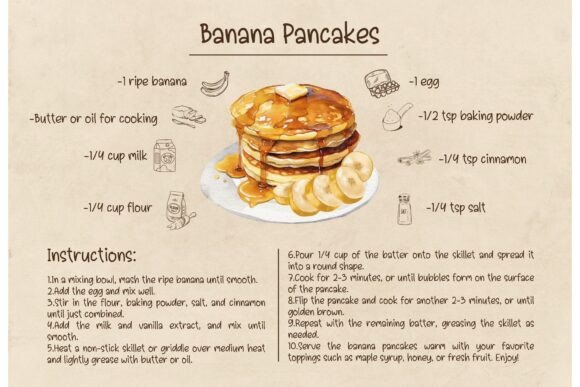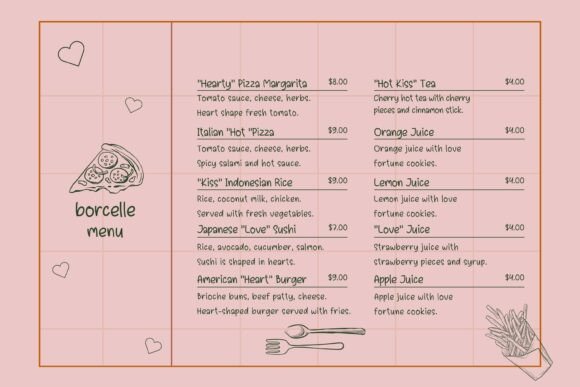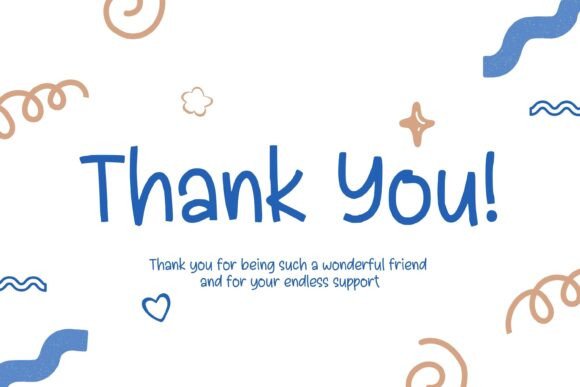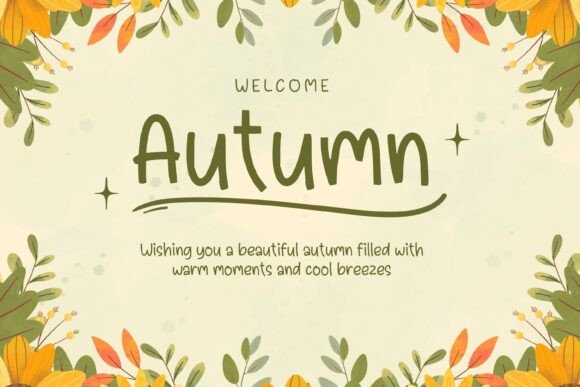
Discover the Perfect Blend of Style and Functionality
Have you ever sat down with a blank sheet of paper and a pen, waiting for inspiration to strike? Maybe it was a brainstorming session for a new project, a heartfelt letter to a loved one, or simply a moment of quiet reflection. Whatever the reason, the act of putting pen to paper can be a truly liberating experience. And what’s even better? Bringing that same feeling to life with the perfect font.
Enter Jelika Font – a versatile and effortlessly cool handwriting font that’s perfect for adding a touch of personalized charm to your design projects. Whether you’re crafting a handmade card, creating a professional business venture, or simply looking to add some flair to your everyday documents, Jelika strikes the perfect balance between stylistic expression and functionality. As a valuable addition to any designer’s toolkit, Jelika Font is sure to become your go-to choice for all your creative endeavors.
Jelika Font Key Features
- Font Family: Jelika is a sans-serif font family with a unique, modern design.
- Size: The font family includes 10 styles, ranging from Light to Bold, with 5 weights in between.
- Resolution: Optimized for use at high resolutions, making it suitable for digital displays and print materials.
- Language Support: Jelika supports multiple languages, including Latin, Cyrillic, and Greek alphabets.
- Unique Characteristics: Jelika features a distinctive, geometric design with a focus on legibility and readability.
Jelika Font Review
I recently had the chance to work with Jelika Font, and I must say it’s been an interesting experience. Let’s dive into what works well and what doesn’t.
- Unique and elegant design: Jelika Font has a distinctive look that can add a touch of sophistication to any project.
- High-quality glyph coverage: The font has a wide range of characters, including many languages and special symbols.
- Excellent legibility: Jelika Font is highly readable, making it suitable for body text and other content-heavy applications.
- Limited font weights: Jelika Font currently only comes in a few weights, which may limit its versatility in certain situations.
- No italics or bold-italics: This can make it difficult to create emphasis or add visual interest to text.
- Not ideal for display text: While Jelika Font is great for body text, it may not be the best choice for headlines or other display text due to its relatively narrow width.
Overall, Jelika Font is a solid choice for projects where you need a high-quality, elegant font. However, its limitations may make it less suitable for more complex or demanding projects.
Getting the Most Out of Jelika Font
To get the most out of Jelika font, experiment with different font combinations, pairing it with complementary fonts to create unique and visually appealing designs. Also, consider adjusting font sizes, colors, and styles to create emphasis and hierarchy in your designs.
Jelika font is ideal for creative projects, such as graphic designs, brochures, and marketing materials. It’s also suitable for digital projects, such as websites, social media graphics, and presentations.
Are there any font pairing recommendations for Jelika Font?
Yes, we recommend pairing Jelika Font with other sans-serif fonts to create a clean and modern typographic look. Some popular pairing options include Open Sans, Lato, and Montserrat. You can also experiment with serif fonts like Georgia or Merriweather for a more traditional look.